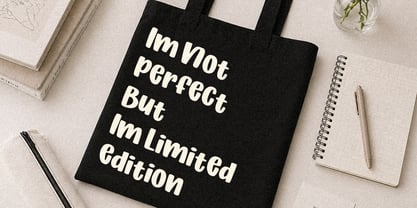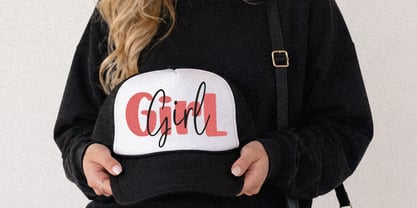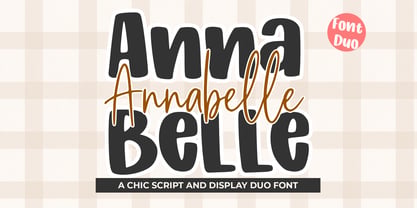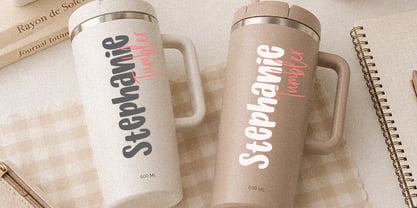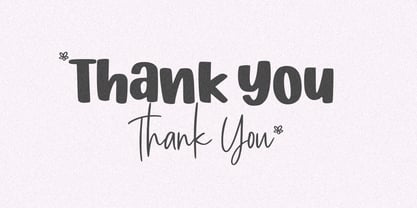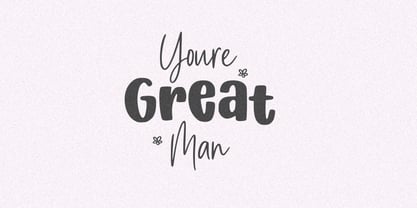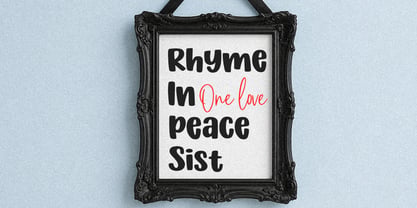
Annabelle Duo
by Natural Ink
The Annabelle Duo Font Family was designed by Arif Gunawan and published by Natural Ink. Annabelle Duo contains 2 styles and family package options. More about this family
Annabelle Duo is a beautifully handcrafted font duo that combines a bold display style with an elegant handwritten script in one perfectly balanced family. Inspired by natural hand strokes, this font collection delivers an artistic, expressive, and authentic feel that adds personality to every design.
The display font features strong and eye catching letterforms with a modern handcrafted touch, while the script font flows smoothly with organic curves and natural brush-like movement. Together, they create a harmonious combination that is both stylish and versatile.
Carefully designed to capture the beauty of real hand lettering, Annabelle Duo is perfect for branding, logos, packaging, social media, invitations, posters, quotes, and creative projects that need a warm and artistic appearance.
Features:
• Handcrafted display and script font combination
• Natural hand-stroke character with authentic texture
• Stylish, modern, and versatile design
• Perfect pairing for branding and typography projects
• Suitable for print and digital use
Annabelle Duo is more than just a font pair it is a creative expression that blends bold character and elegant handwriting into one unique visual experience.